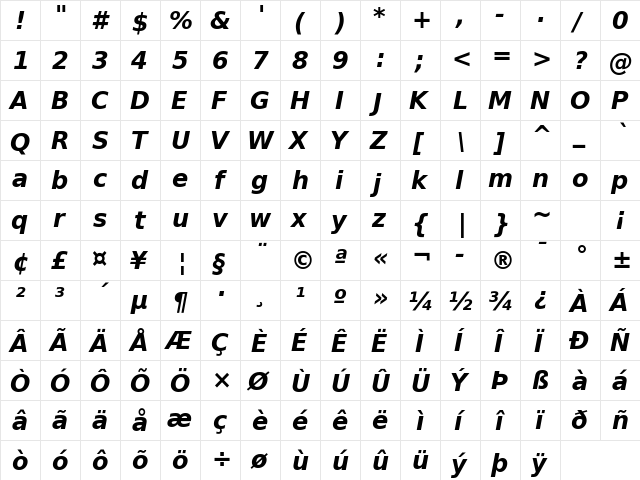
Bepa BoldOblique
| Foundry | Bitstream Inc. |
Design Context for Bepa Typeface
Bepa takes a measured approach to typography — its balanced proportions and neutral character make it a reliable workhorse for both digital and print work. Its italic angle brings a sense of urgency and motion to the letterforms. The heavy weight commands attention and anchors typographic hierarchies.
Pro Tip: Use Bepa for emphasis, pull quotes, and subheadings where its slanted energy can add rhythm to the layout.